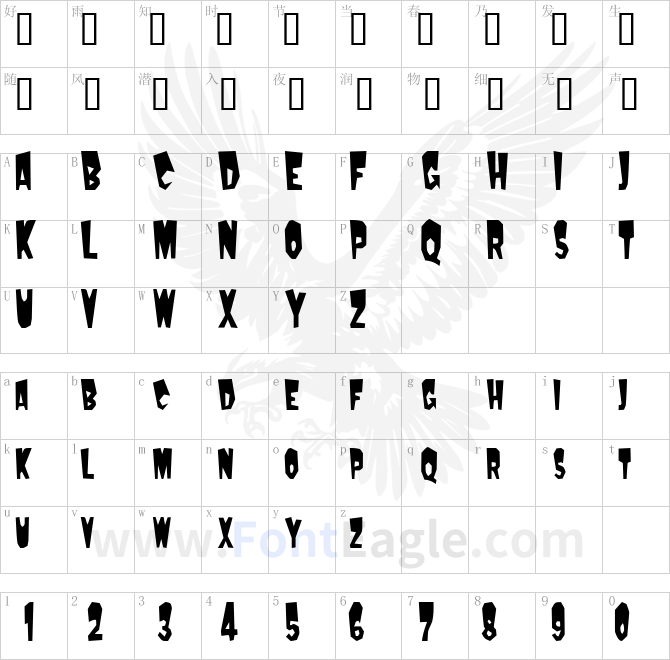
MondoCondensed is a great font, widely used in graphic design, single-page menu design, poster design and other fields, and is deeply loved by designers.MondoCondensed download.